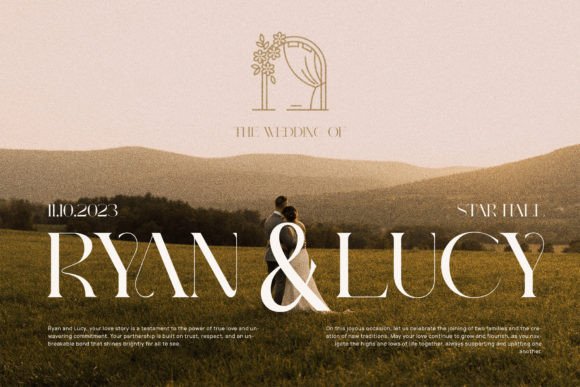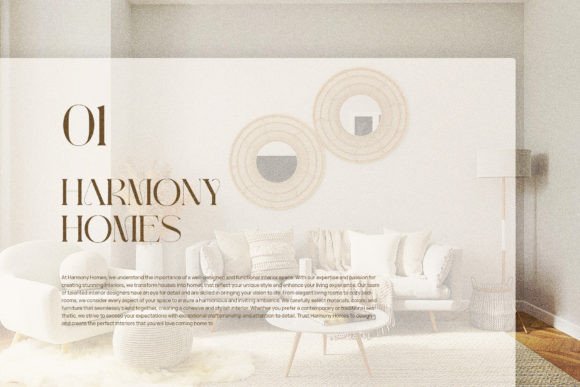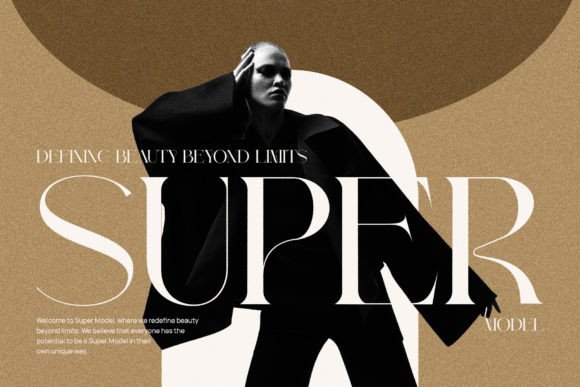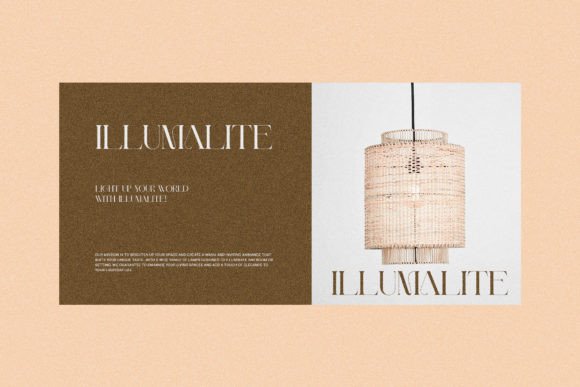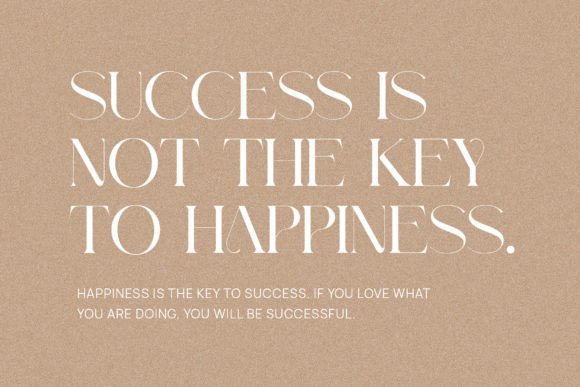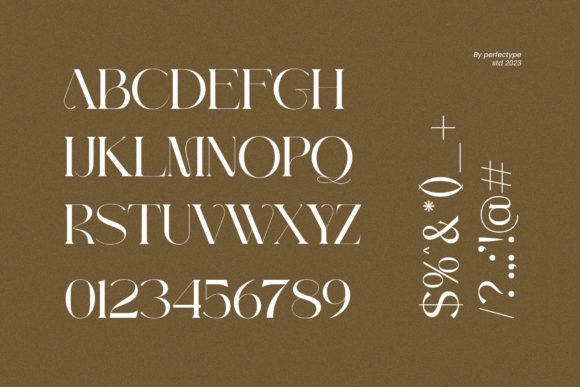
Introduction to Maqer Font
As a designer, there’s nothing quite like the thrill of discovering a new font that perfectly captures the essence of a creative project. It’s that moment when all the pieces fall into place, and the design begins to take shape. For many of us, that moment comes when we stumble upon the Maqer Font – a stunning, elegant serif typeface that exudes class and sophistication.
With its unique blend of traditional and modern elements, the Maqer Font is an invaluable design resource for any creative project. Whether you’re working on a branding project, designing a logo, or creating social media posts, this versatile font is sure to elevate your work to the next level. And with its high-quality design and transparent background, you can rest assured that your final product will be nothing short of exceptional.
Key Features of Maqer Font
- High-quality font suitable for creative projects, including posters, flyers, and brochures.
- Features a high-resolution design, making it suitable for printing and digital applications.
- Unique, stylish design that can add a touch of sophistication to any creative project.
Honest Review: Maqer Font
- ✨ What works well: The Maqer Font has a unique, modern aesthetic that adds a touch of sophistication to any design. The font is highly customizable, making it perfect for branding and logo design.
- ✨ The font is also incredibly versatile, suitable for a wide range of creative projects, from business cards to website headers.
However, there are a few limitations to consider: ⚠️ The font is not as extensive as some other font collections, with a relatively small character set. Additionally, some users may find the font’s modern style too trendy or overused.
Overall, I was impressed with the Maqer Font’s high quality and design versatility. While it may not be the best choice for every project, it’s a great addition to any designer’s toolkit, especially for those working on creative projects that require a modern, sophisticated look.
Using Maqer Font in Creative Projects
Tips for Getting the Most Out of Maqer Font
Experiment with different font sizes, colors, and styles to enhance the visual appeal of your design.
Combine Maqer Font with other design elements, such as images and graphics, to create a unique and engaging visual identity.
Maqer Font is suitable for various design projects, including business cards, brochures, and social media graphics.